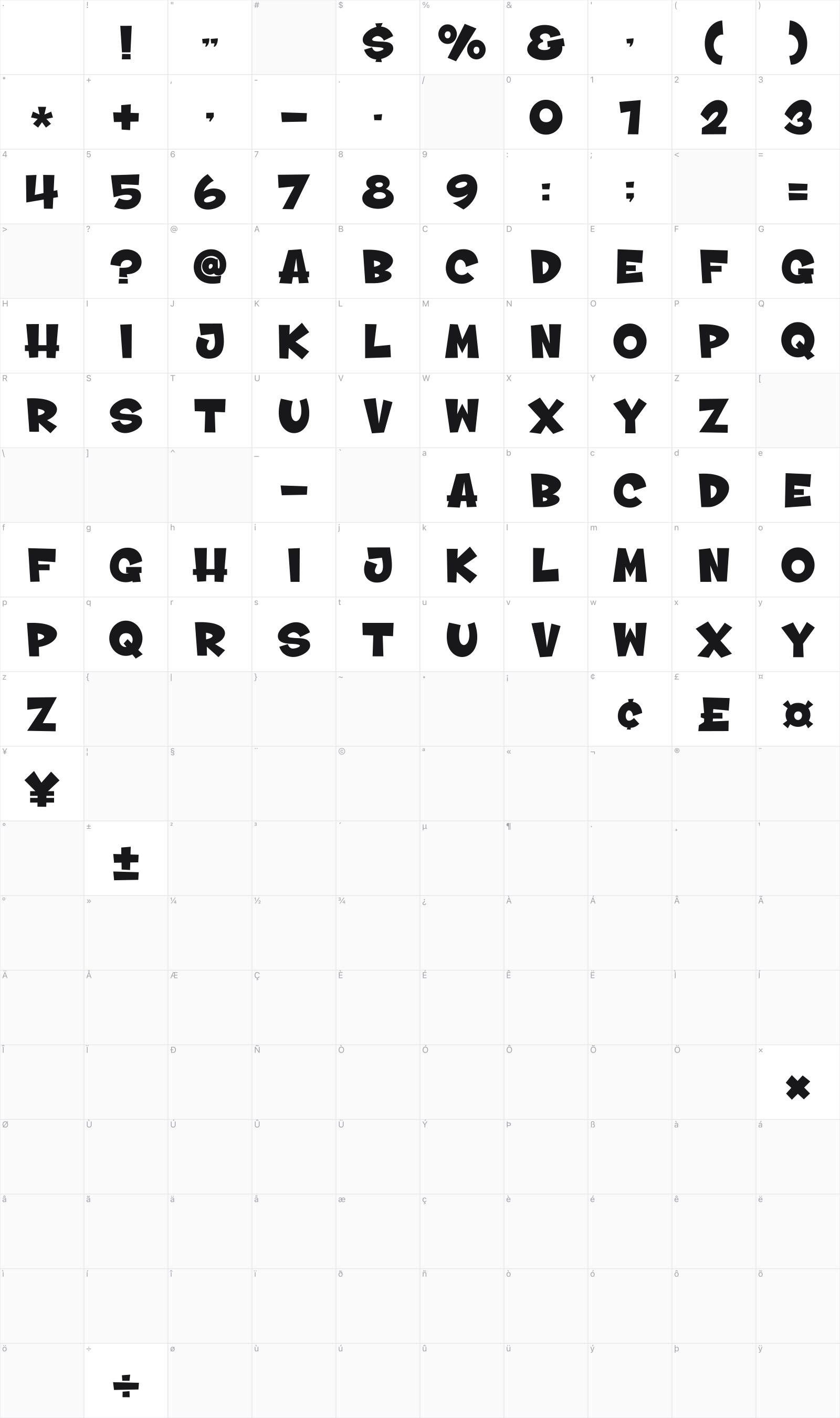
Grow Beige
Grow Beige is a heavy, hand-crafted display font with thick, irregular strokes and deliberately uneven edges that give it a raw, comic-book personality. The chunky characters feel like they were cut from cardboard or stamped with an imprecise tool, giving headlines a lively, tactile quality. It works best large, where those rough contours read as charm rather than noise.